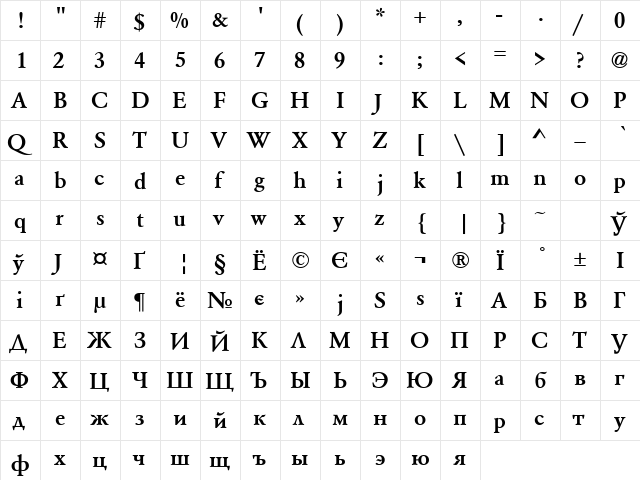
Garamond_A.Z_PS Bold Font Preview
Garamond_A.Z_PS Bold
Design Context for Garamond_A.Z_PS Typeface
Garamond_A.Z_PS takes a measured approach to typography — its balanced proportions and neutral character make it a reliable workhorse for both digital and print work. Its bold stroke weight gives it real presence on the page.